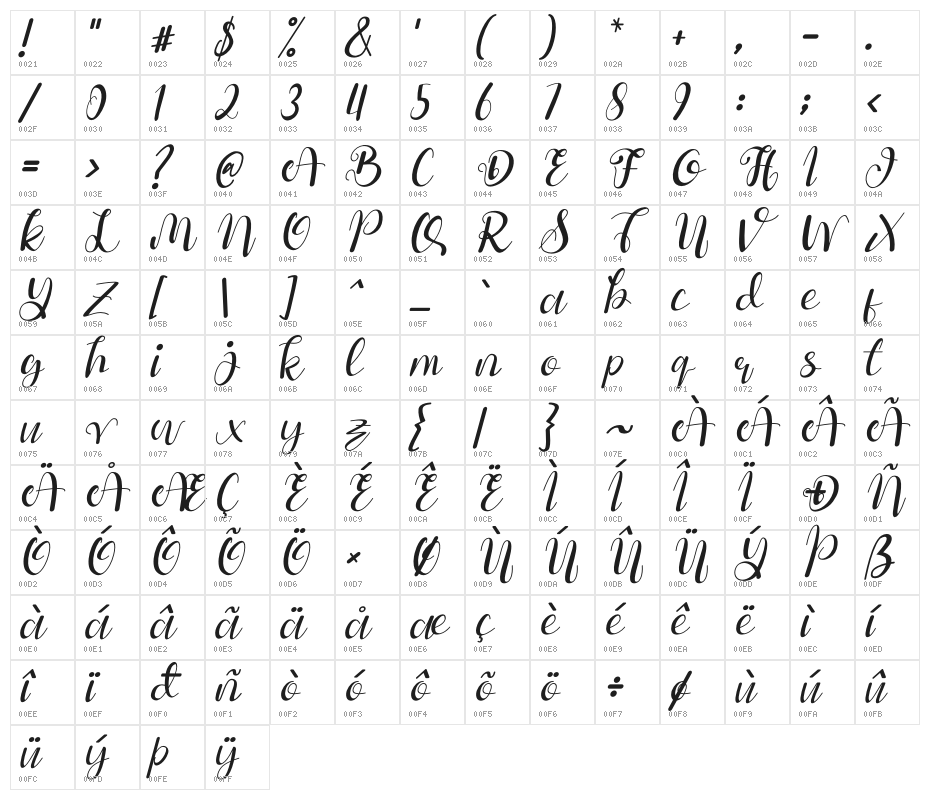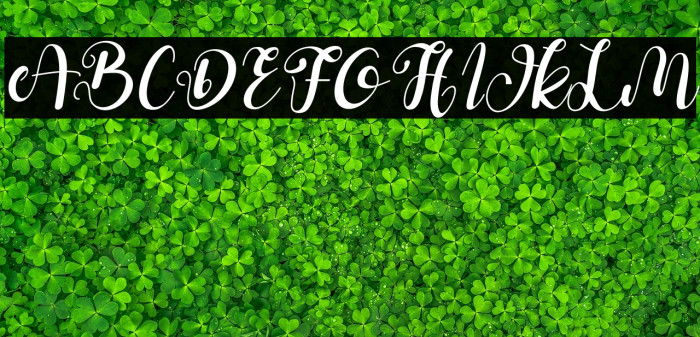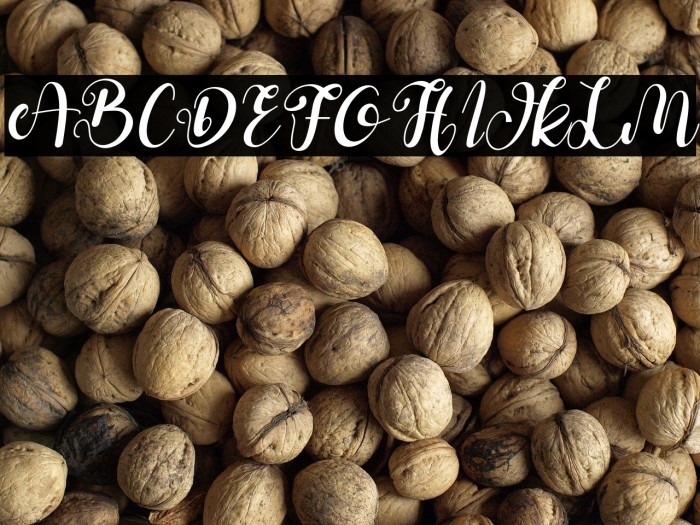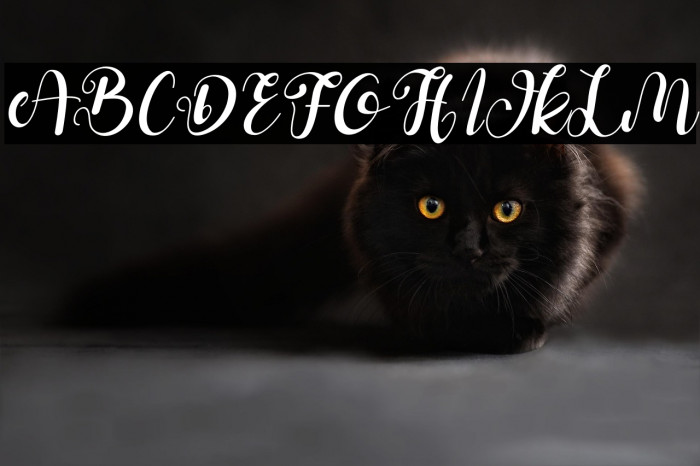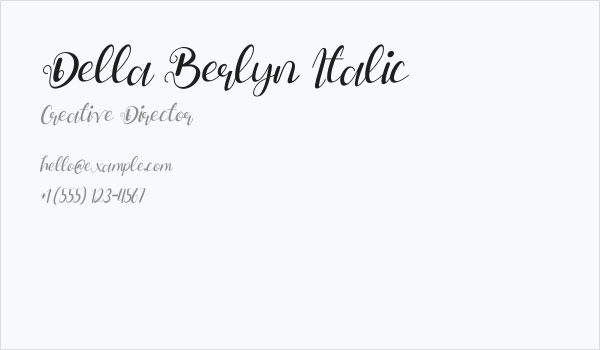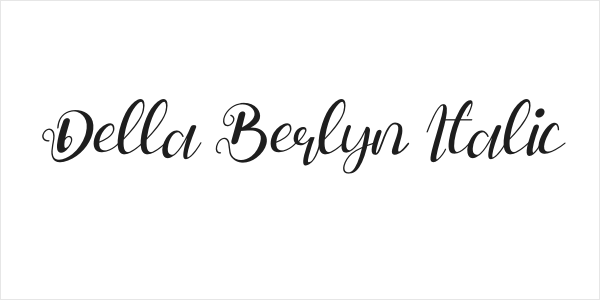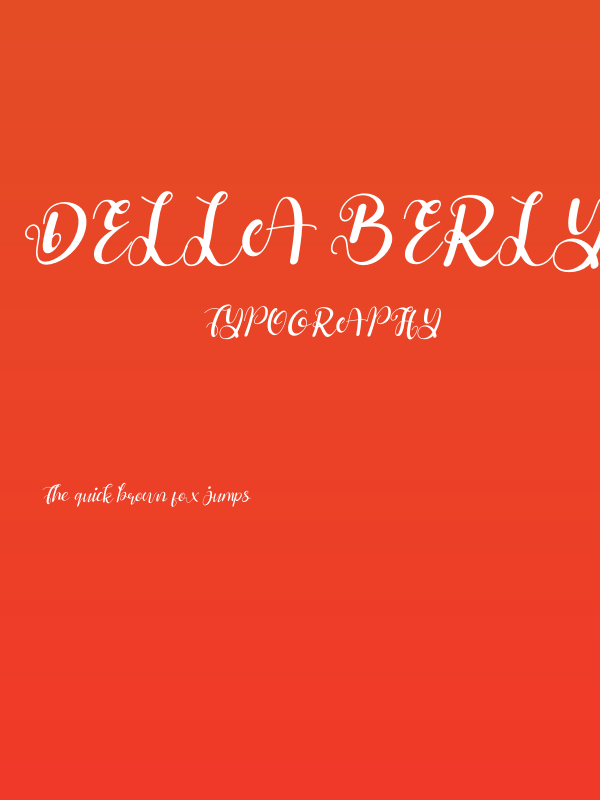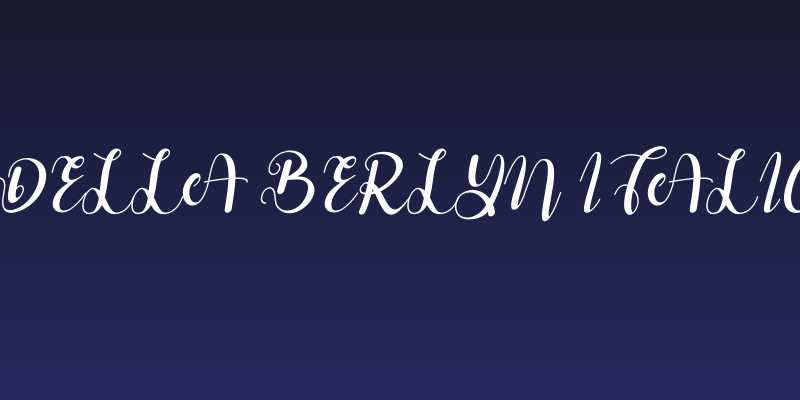
Della Berlyn Italic Font
Della Berlyn Italic Description
This font features an elegant and flowing script style, characterized by its smooth, cursive strokes and graceful curves. The letters are interconnected, creating a sense of continuity and fluidity. The uppercase letters exhibit a sophisticated flair with decorative loops and swashes, while the lowercase letters maintain a consistent rhythm and balance. The numerals and special characters are designed to complement the overall aesthetic, with a harmonious blend of curves and lines. This font exudes a sense of elegance and refinement, making it suitable for formal and creative applications.
| Overall Style | Elegant, Decorative |
| Proposed Projects | Ideal for wedding invitations, elegant branding, greeting cards, and upscale packaging. |